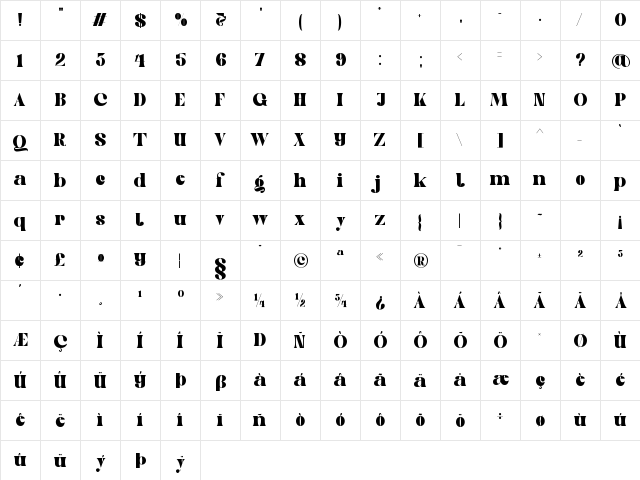
Goovy Modice Regular
Design Context for Goovy Modice Typeface
Goovy Modice is a composed and adaptable typeface that performs quietly and consistently across a wide range of design contexts.